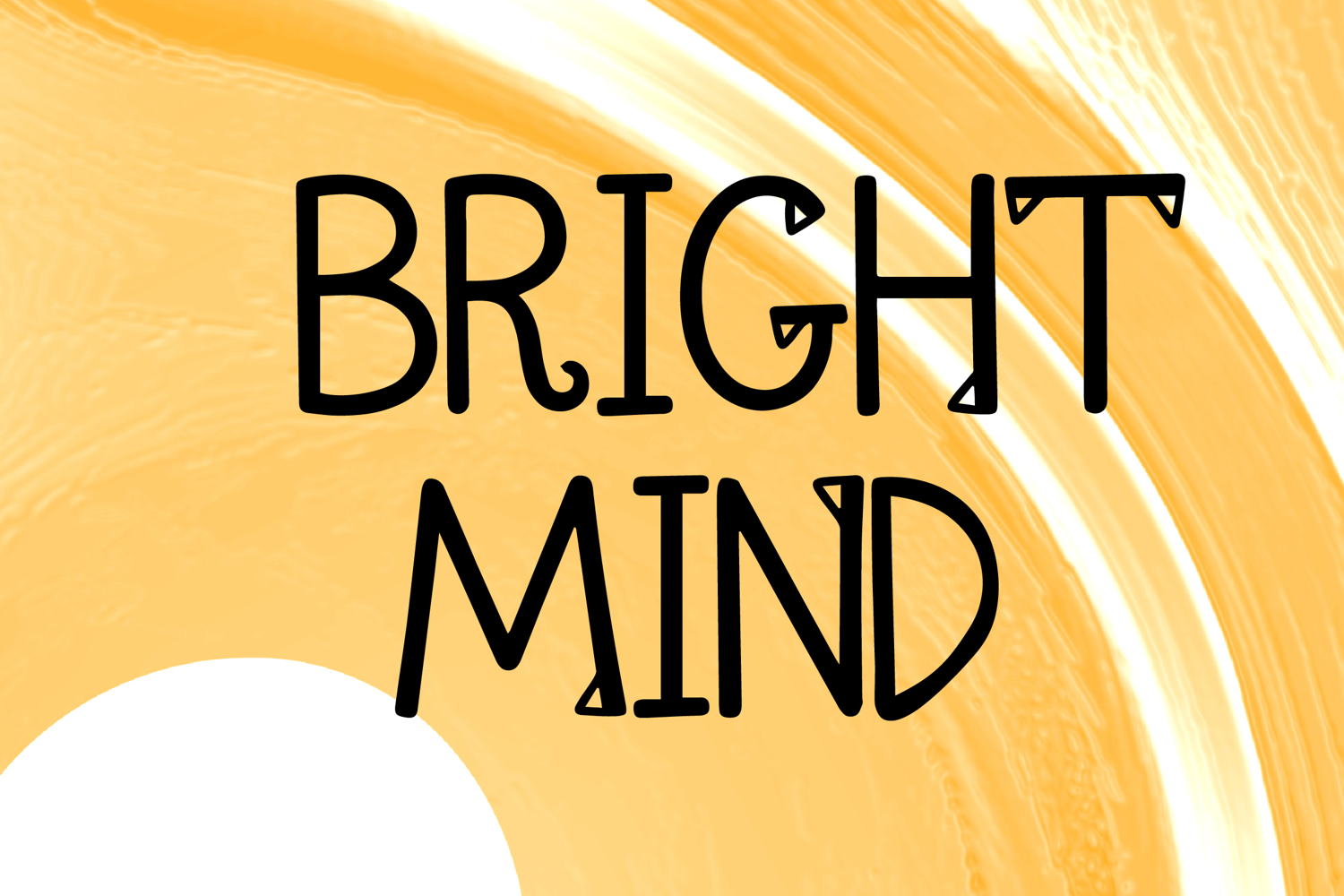
BrightMind
BrightMind is a whimsical display font with a tall handcrafted style and playful modern charm. Its uppercase letterforms feature slim strokes, rounded curves, and subtle pointed accents that create a creative, stylish, and eye-catching look. Designed with uppercase letters A–Z and numbers 0–9, BrightMind is perfect for branding, posters, packaging, invitations, logos, social media graphics, and creative projects that need a fun and memorable statement.